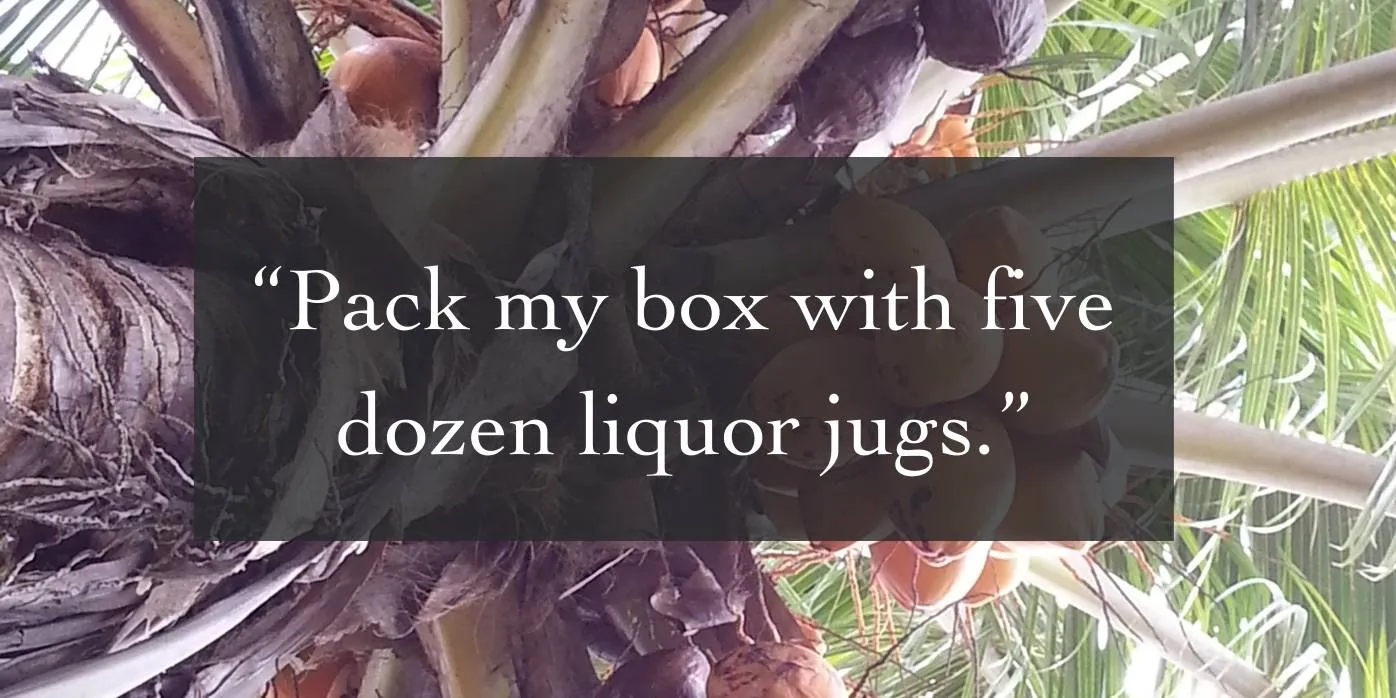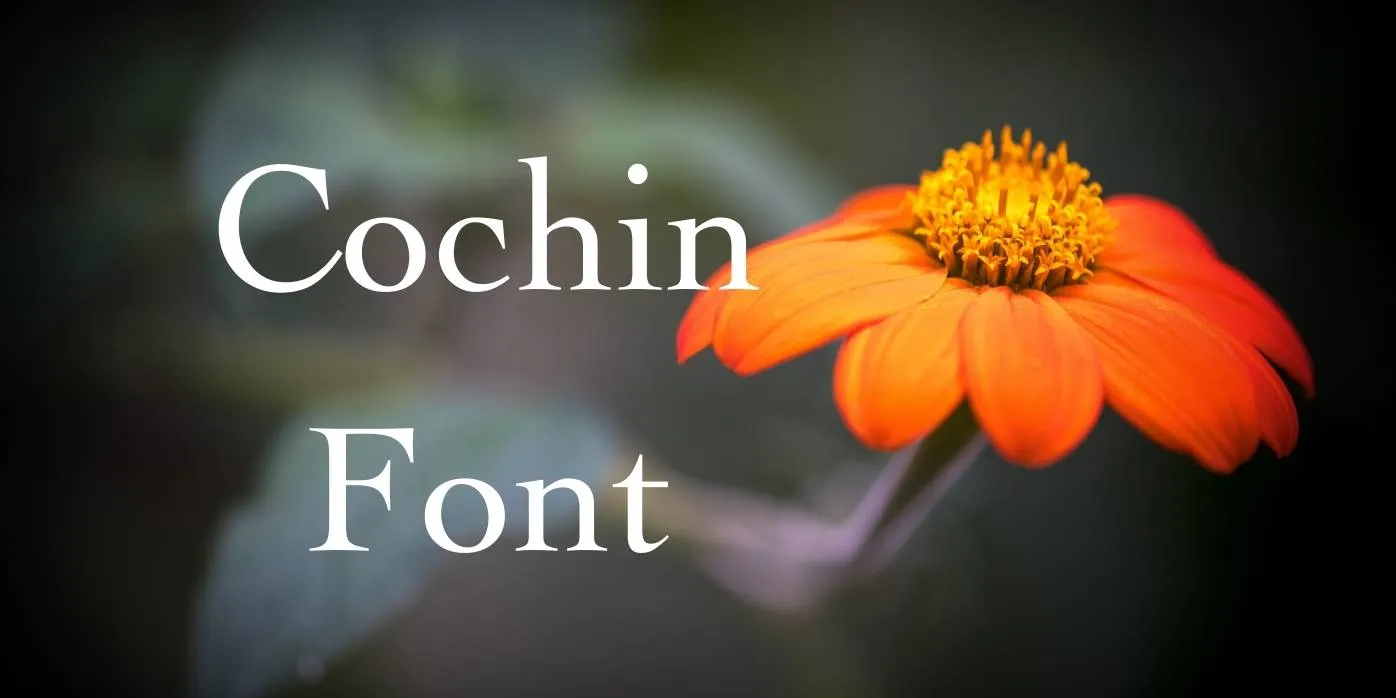
Cochin Font
Cochin Font Is developed and designed by Georges Peignot. This typeface belongs to the Serif font family. It is named after the Indian city of Kochi. This classy font has a very strong structure and it is legible even in small sizes.
This typeface is perfect for Adobe. This typeface was designed for newsprint and has a very wide character set that includes all Latin Extended characters. It is available in both regular and italic styles. This cute font is a good choice for both headlines and text blocks.
Some of its weight is light, regular, semi bold, and black. This typeface is also legible in small sizes which is why it is very famous. It is available in both regular and italic styles. Cochin font is a good choice for text blocks and headlines.